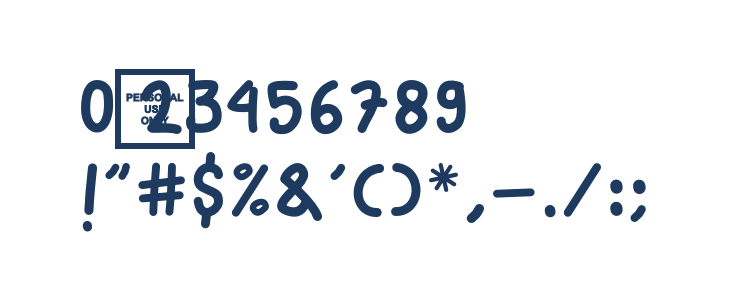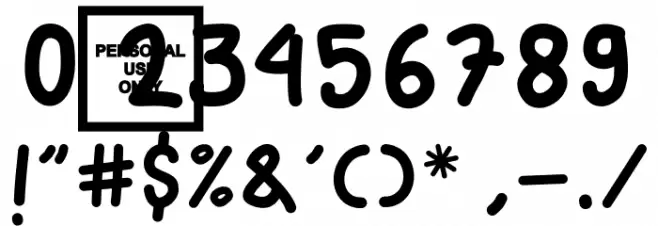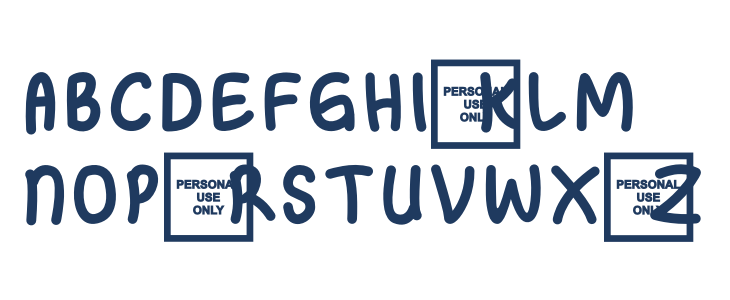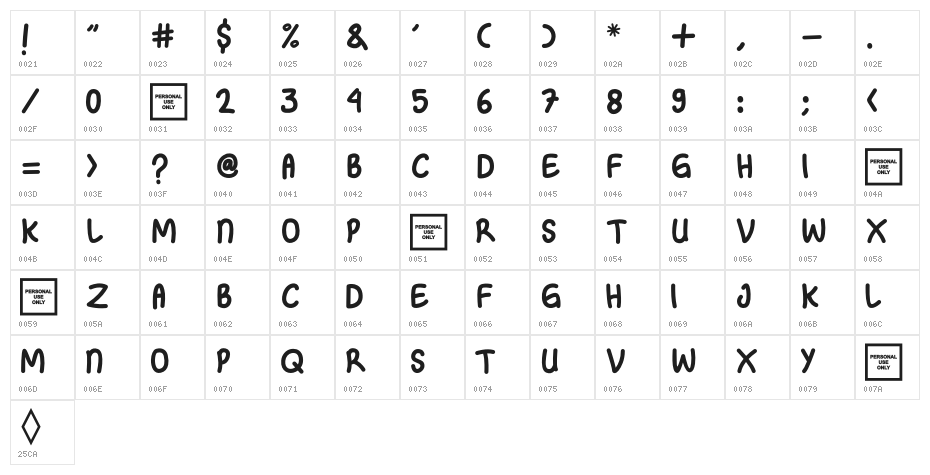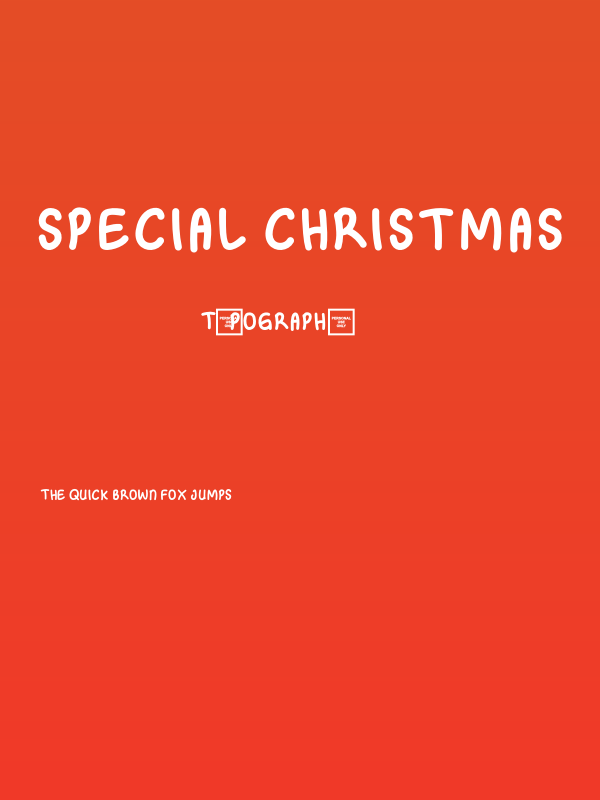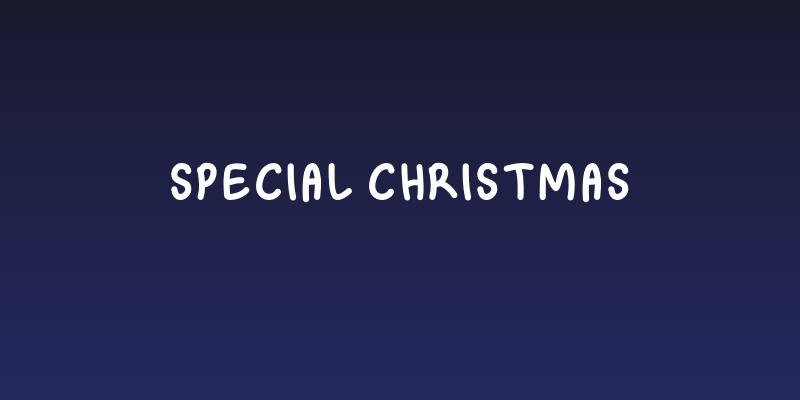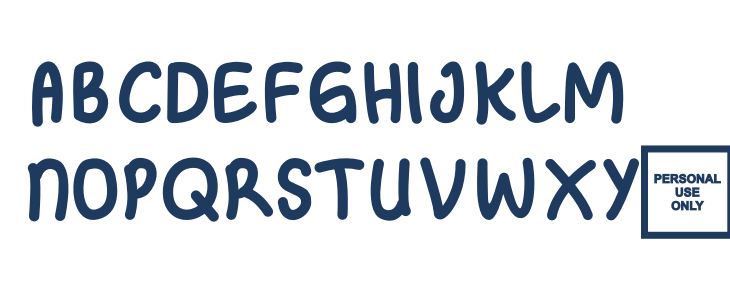
Special Christmas Font
Special Christmas Description
A playful, rounded handwritten typeface with consistent stroke width and informal, friendly character shapes. Letters and numbers have a casual, slightly uneven appearance, enhancing the hand-drawn effect.
| Overall Style | Playful, Informal, Handwritten |
| Use Case | Headlines, Posters, Crafts, Informal Notes |
| Proposed Projects | Greeting cards, children's books, holiday invitations, posters, crafts. |